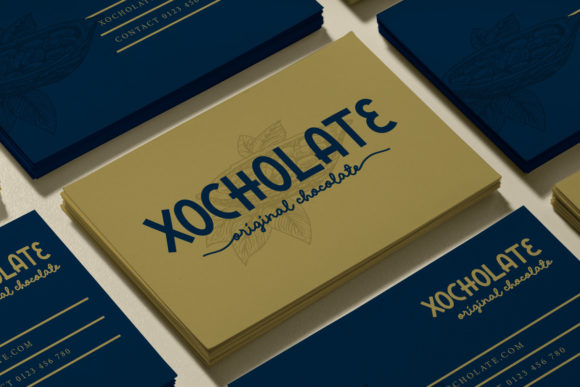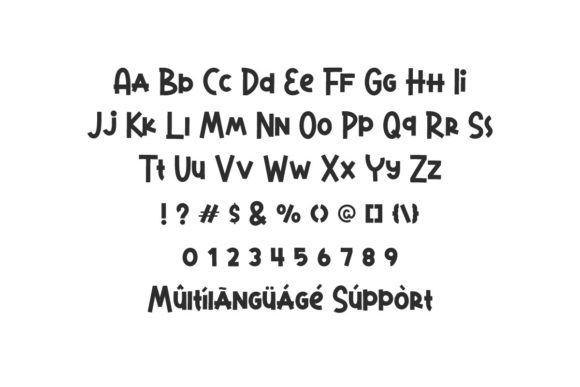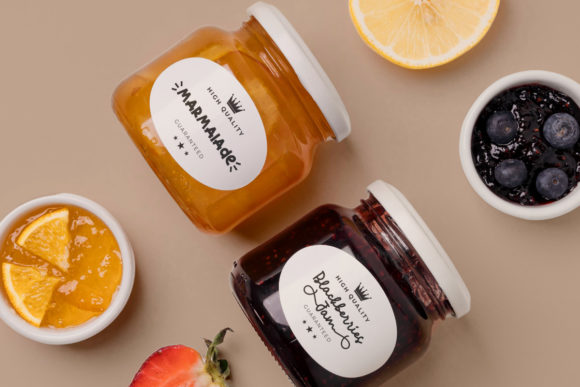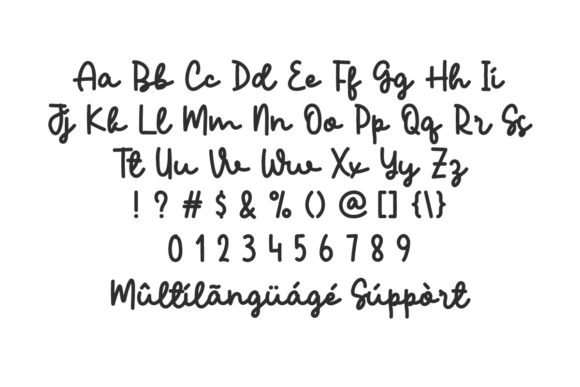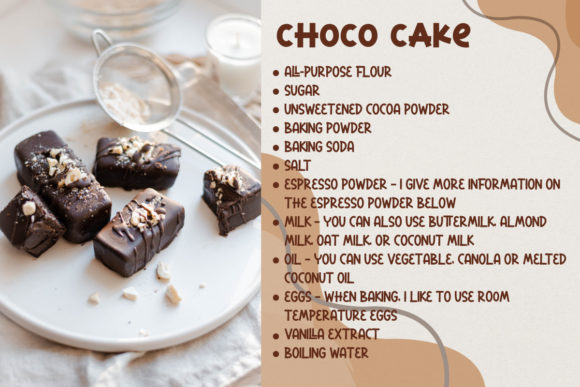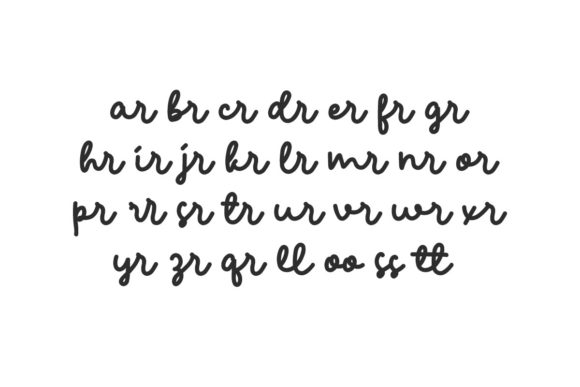
Introduction to Choco Mellow Font
Choco Mellow consists of two fonts designed to complement each other perfectly.
Together or apart, these fonts are ideal for adding a chic and cheery touch to your crafts This font is PUA encoded which means you can access all glyphs and swashes with ease.
Key Features of Choco Mellow Font
Why Choose Choco Mellow Font?
Choco Mellow Font offers exceptional quality and versatility, making it a valuable addition to your design toolkit. Whether you’re creating for personal projects or commercial use, Choco Mellow Font delivers professional results.